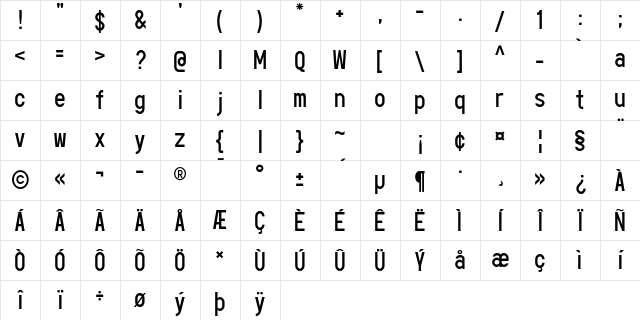
Rijusans Regular Free Font
Rijusans Regular
Foundry: GGBotNet
Designer: GGBotNet
Design Context for Rijusans
Rijusans is a composed and adaptable typeface that performs quietly and consistently across a wide range of design contexts.